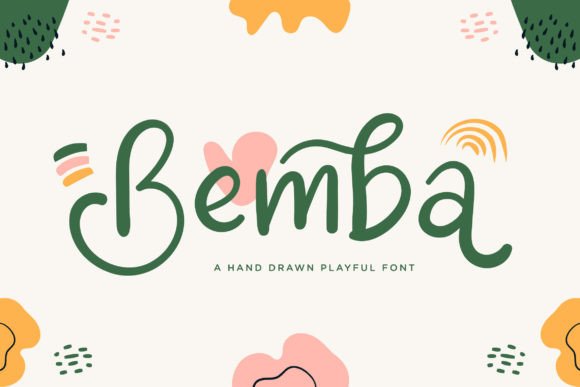
Bemba Font: Adding a Touch of Fun and Creativity to Your Designs
In the world of typography, fonts play a crucial role in conveying the tone and personality of a design. If you’re looking for a font that can add a touch of fun and creativity to your projects, look no further than Bemba Font. This hand-drawn playful font is perfect for designers and crafters who want to bring a personal touch to their work.
What is Bemba Font?
Bemba is a unique and playful hand-drawn font that features a distinctive style that sets it apart from other fonts. Its hand-drawn design gives it a personal and approachable feel, making it perfect for projects that need to be engaging and friendly. Whether you’re working on a branding project, social media graphics, invitations, posters, or more, Bemba Font is a versatile choice that can help you achieve your design goals.
Characteristics of Bemba Font
Bemba Font has several characteristics that make it a standout choice for designers and crafters. Some of its key features include:
- Hand-drawn design: Bemba Font features a unique hand-drawn design that gives it a personal and playful touch.
- Playful and friendly: The font has a playful and friendly design that makes it perfect for projects that need to be approachable and engaging.
- Versatile: Bemba Font is a versatile choice that can be used for a variety of projects, including branding, social media graphics, invitations, posters, and more.
Uses of Bemba Font
Bemba Font is a versatile font that can be used for a wide range of projects. Some of the most popular uses of Bemba Font include:
- Branding: Bemba Font is perfect for branding projects that need a personal and playful touch.
- Social media graphics: The font’s playful and friendly design makes it perfect for social media graphics that need to engage and interact with audiences.
- Invitations: Bemba Font is a great choice for invitations, such as birthday parties, baby showers, and other celebrations.
- Posters: The font’s bold and playful design makes it perfect for posters that need to grab attention and convey a message.
Benefits of Using Bemba Font
There are several benefits to using Bemba Font in your designs. Some of the most significant advantages include:
- Unique and playful design: Bemba Font’s unique and playful design sets it apart from other fonts and can help your designs stand out.
- Personal touch: The font’s hand-drawn design gives it a personal touch that can help you connect with your audience.
- Versatility: Bemba Font is a versatile choice that can be used for a wide range of projects.
Tips for Using Bemba Font
To get the most out of Bemba Font, here are some tips to keep in mind:
- Use it for headlines and titles: Bemba Font’s bold and playful design makes it perfect for headlines and titles.
- Experiment with colors: The font’s playful design makes it perfect for experimenting with different colors and color combinations.
- Pair it with other fonts: Bemba Font can be paired with other fonts to create a unique and interesting design.
In conclusion, Bemba Font is a hand-drawn playful font that can add a touch of fun and creativity to your designs. Its unique and playful design makes it perfect for projects that need a personal touch, and its versatility makes it a great choice for a wide range of projects. Whether you’re a designer or crafter, Bemba Font is a great choice for anyone looking to add a little personality to their work.